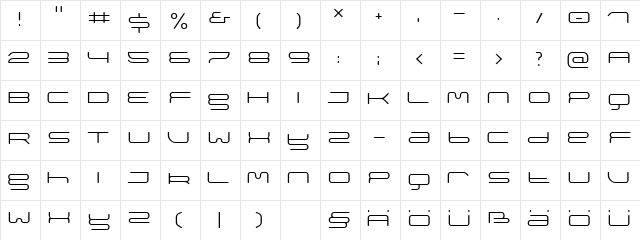
megathin Regular
Design Context for megathin
megathin is a composed and adaptable typeface that performs quietly and consistently across a wide range of design contexts. Its slender proportions lend an understated elegance to any composition.